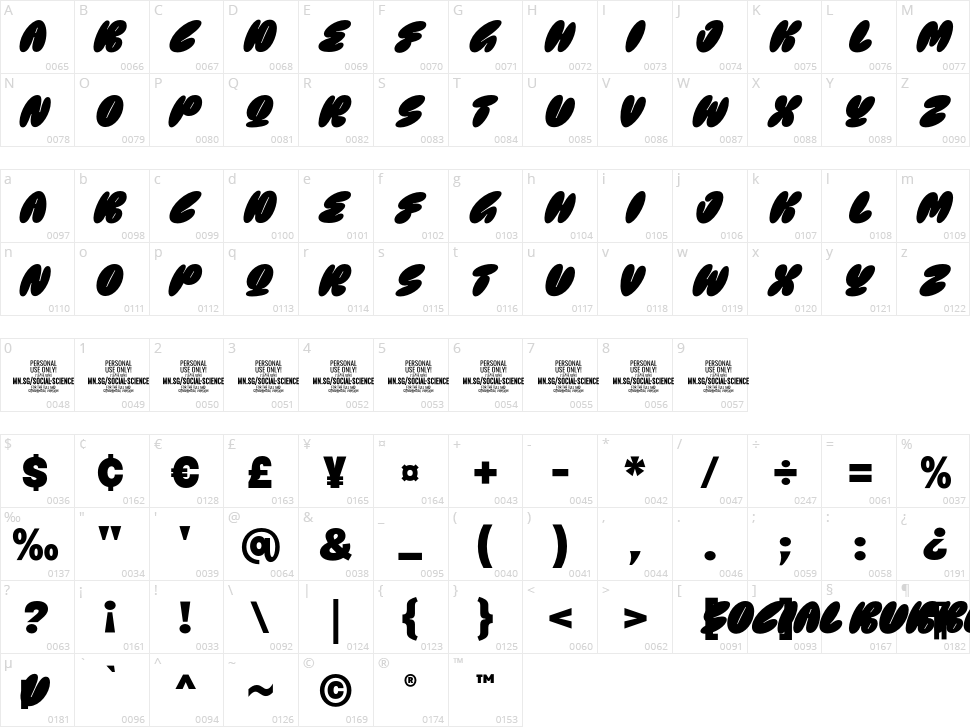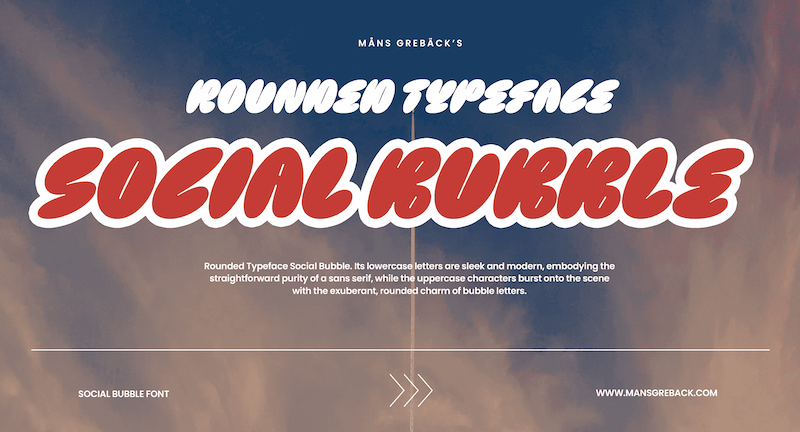
Social Bubble
Social Bubble is a cute font that captures the essence of softness and friendliness, while presenting a bold statement reminiscent of graffiti art.